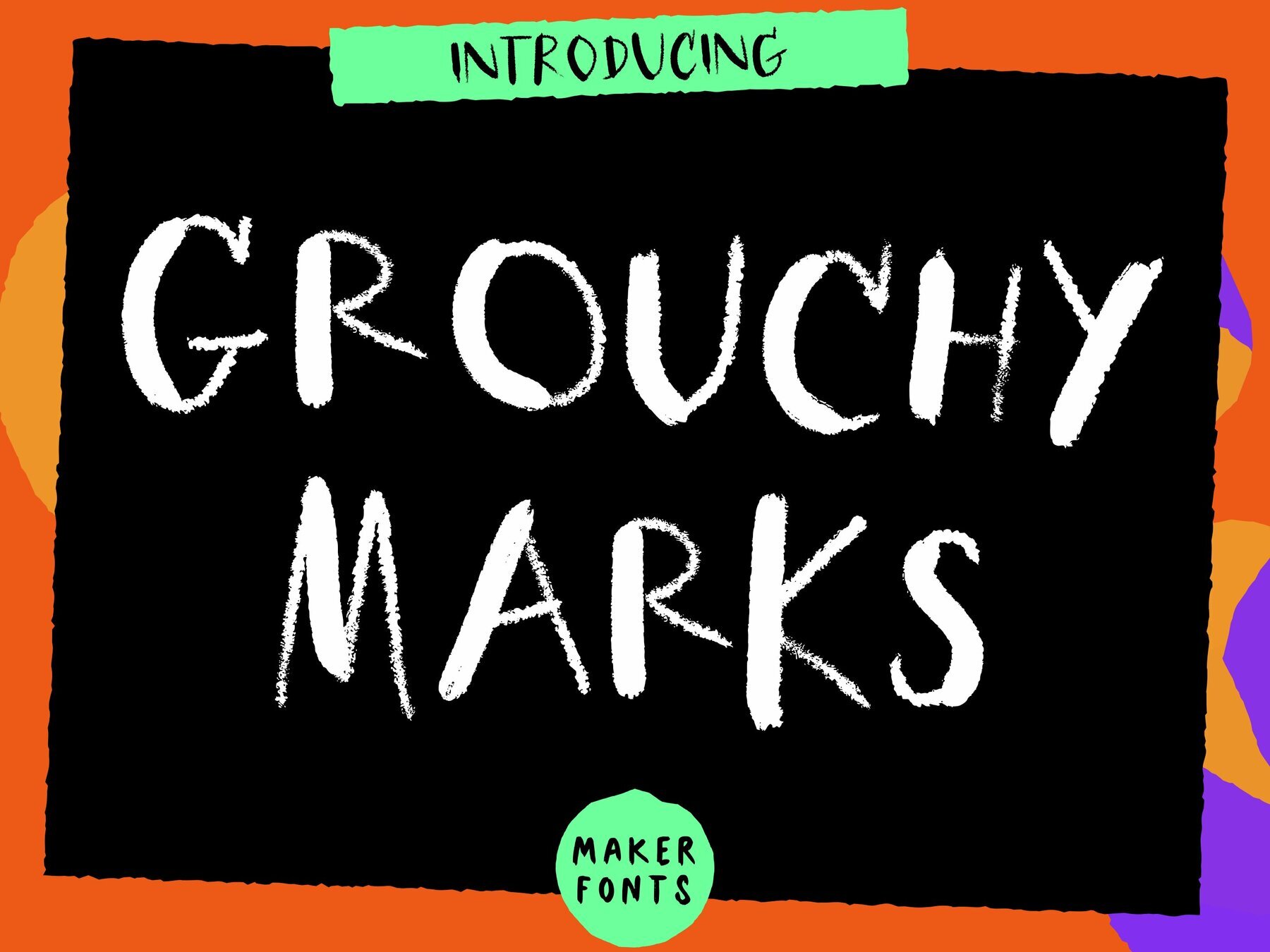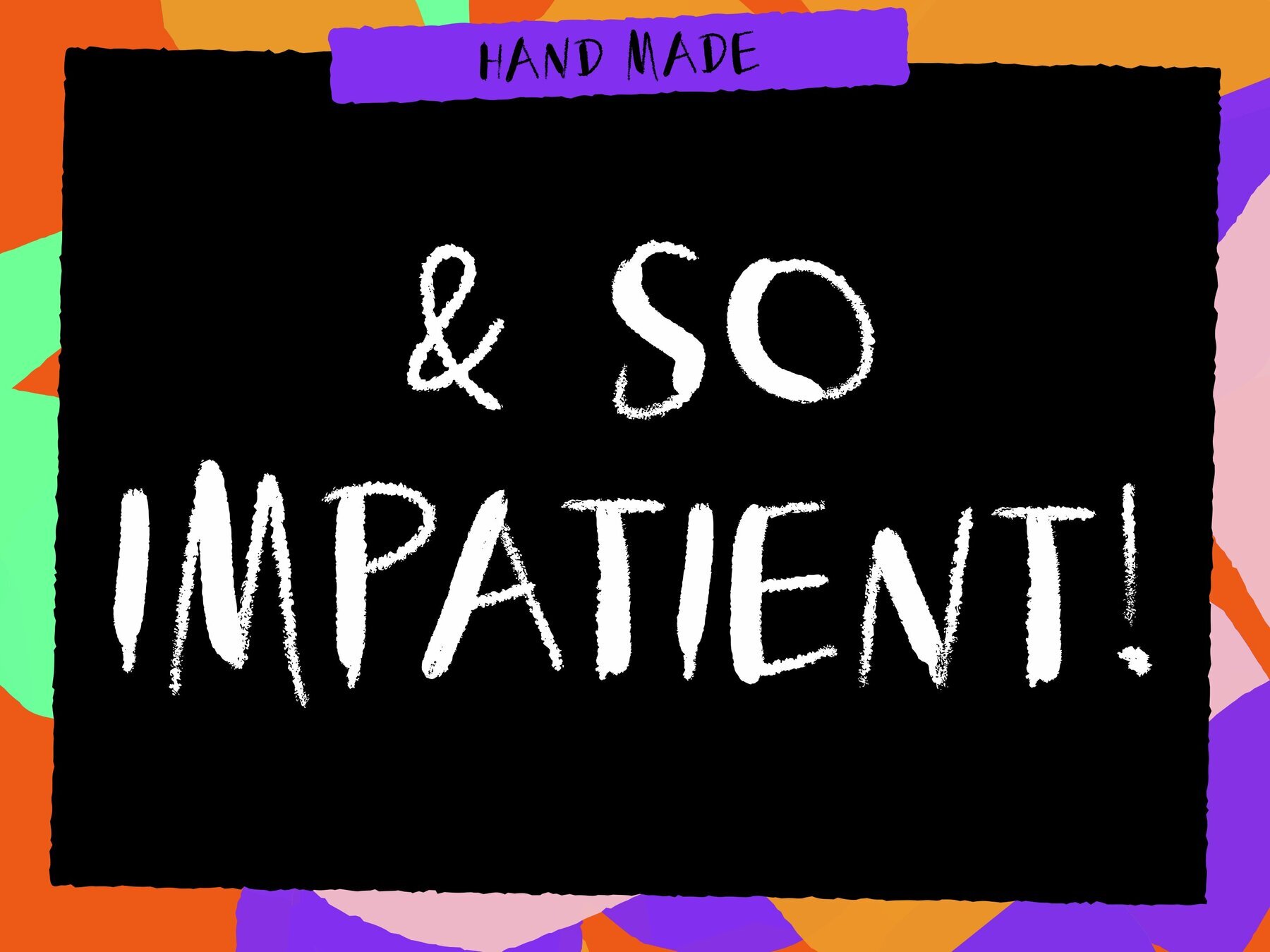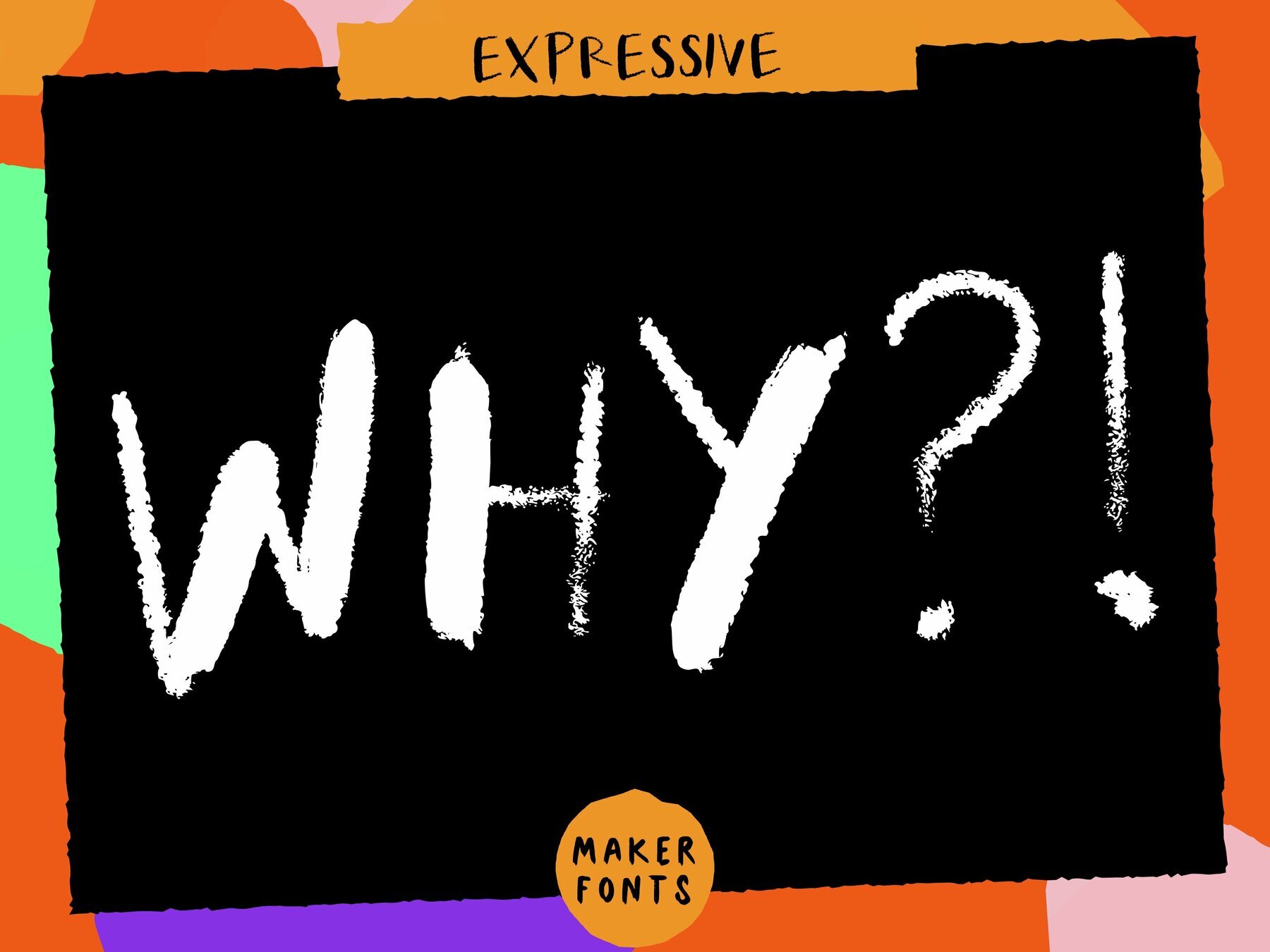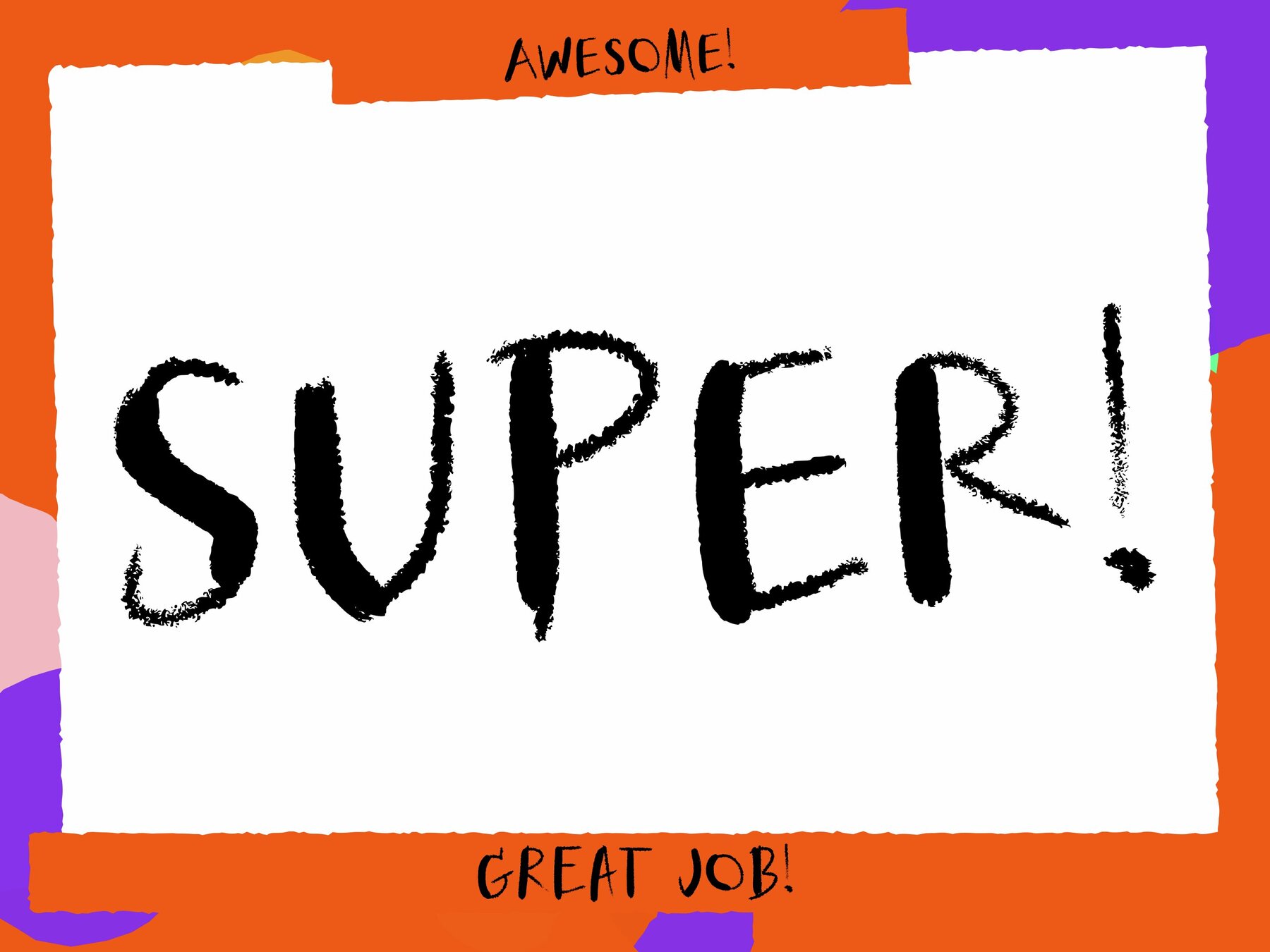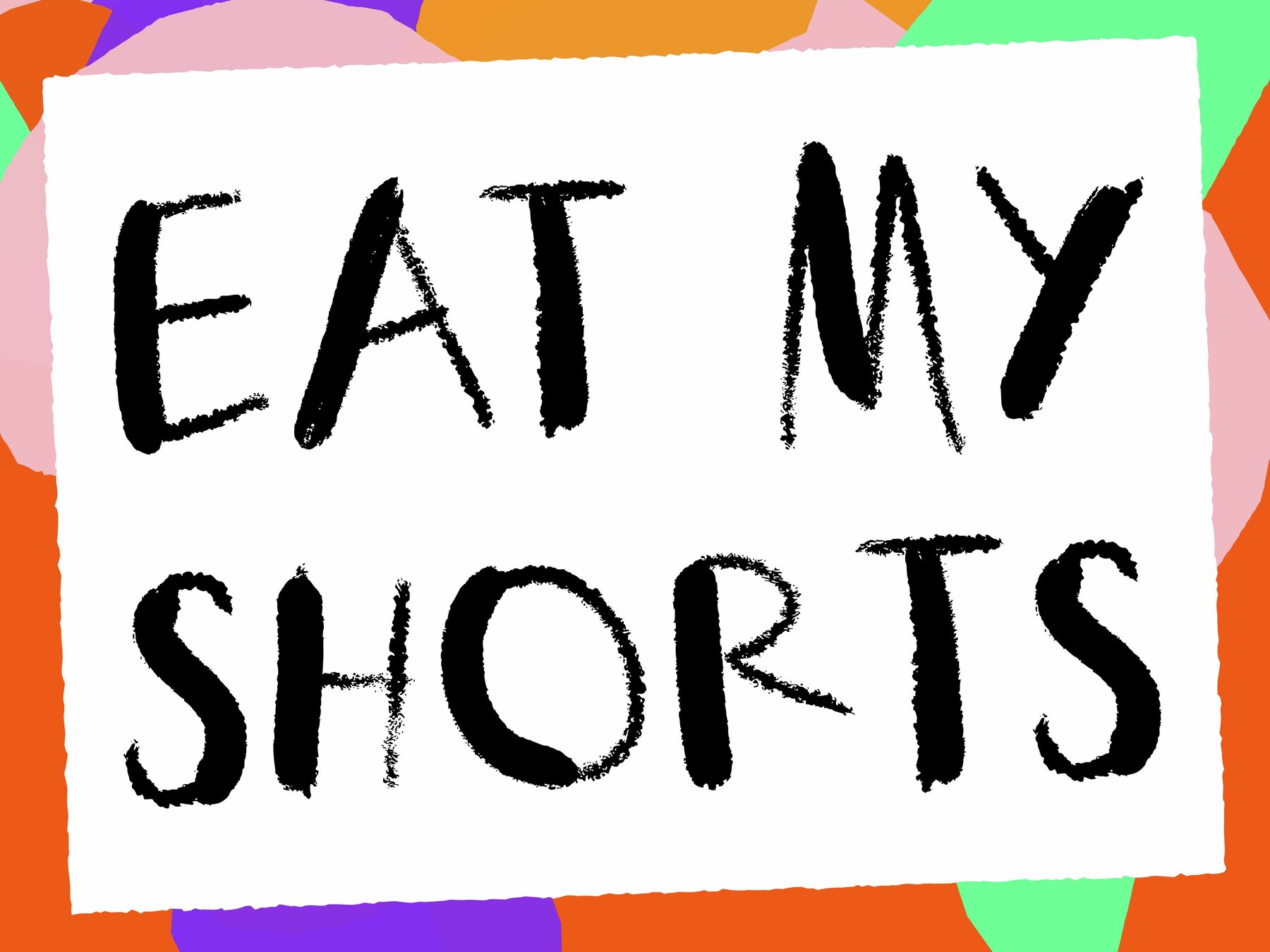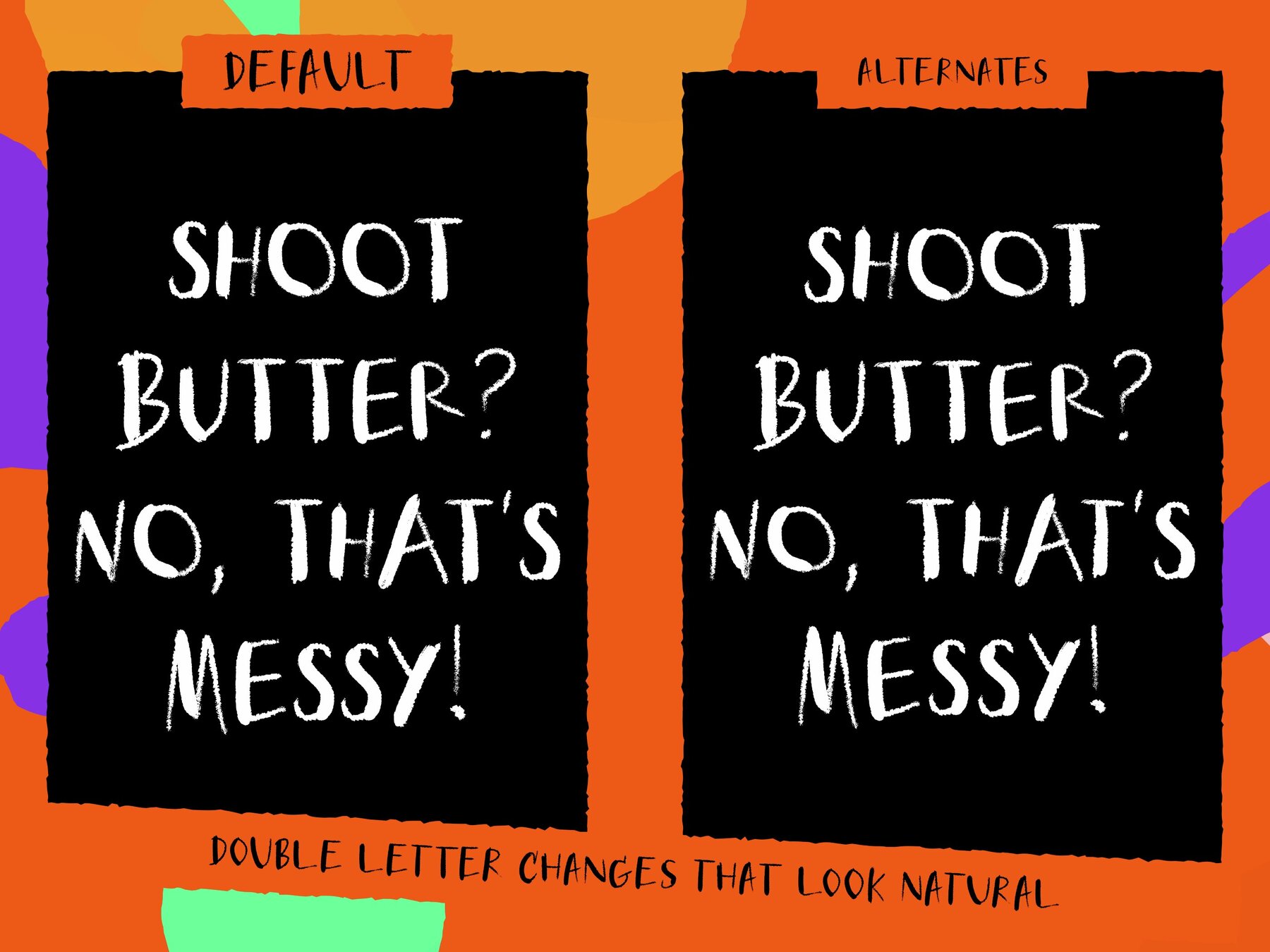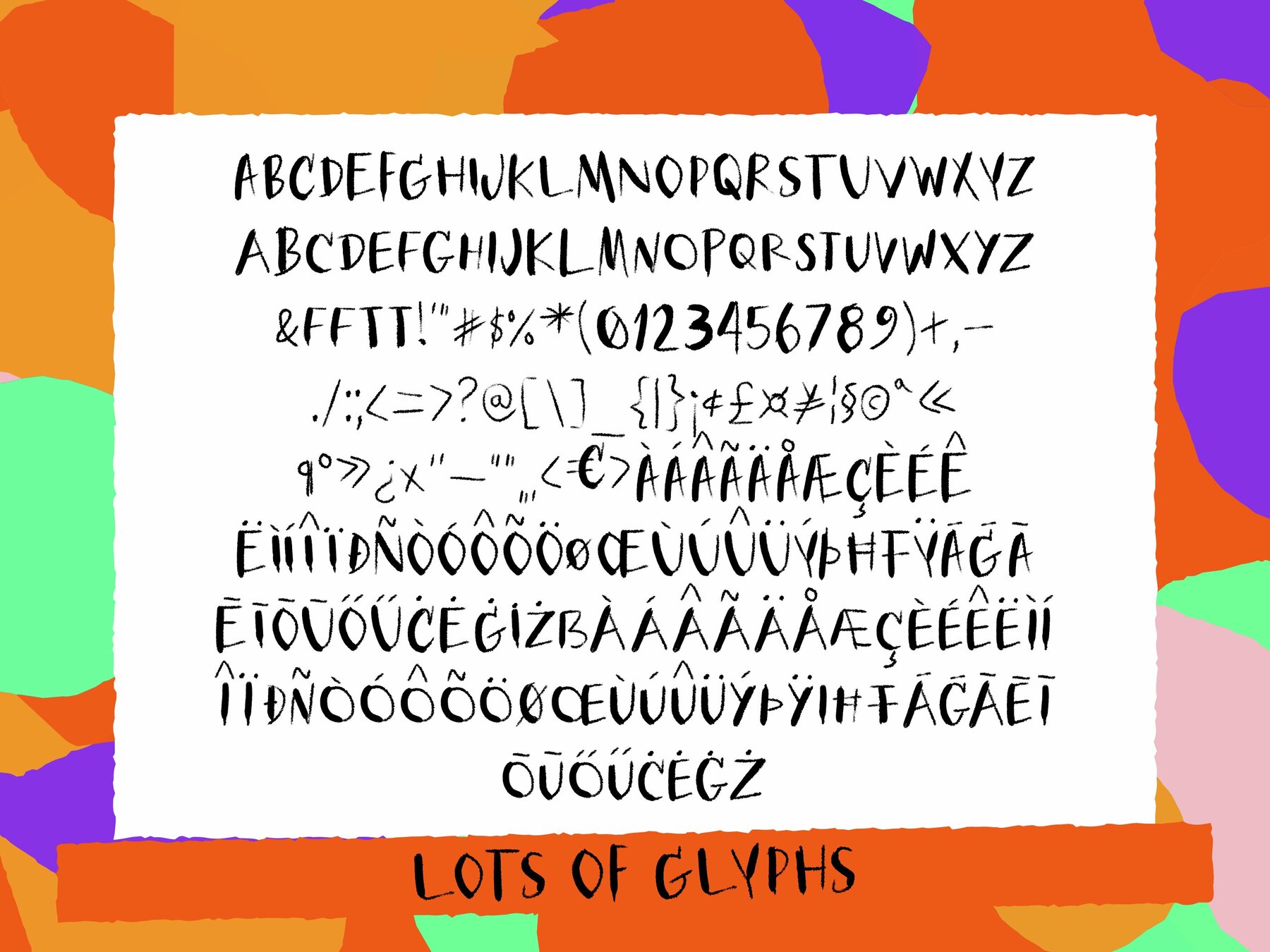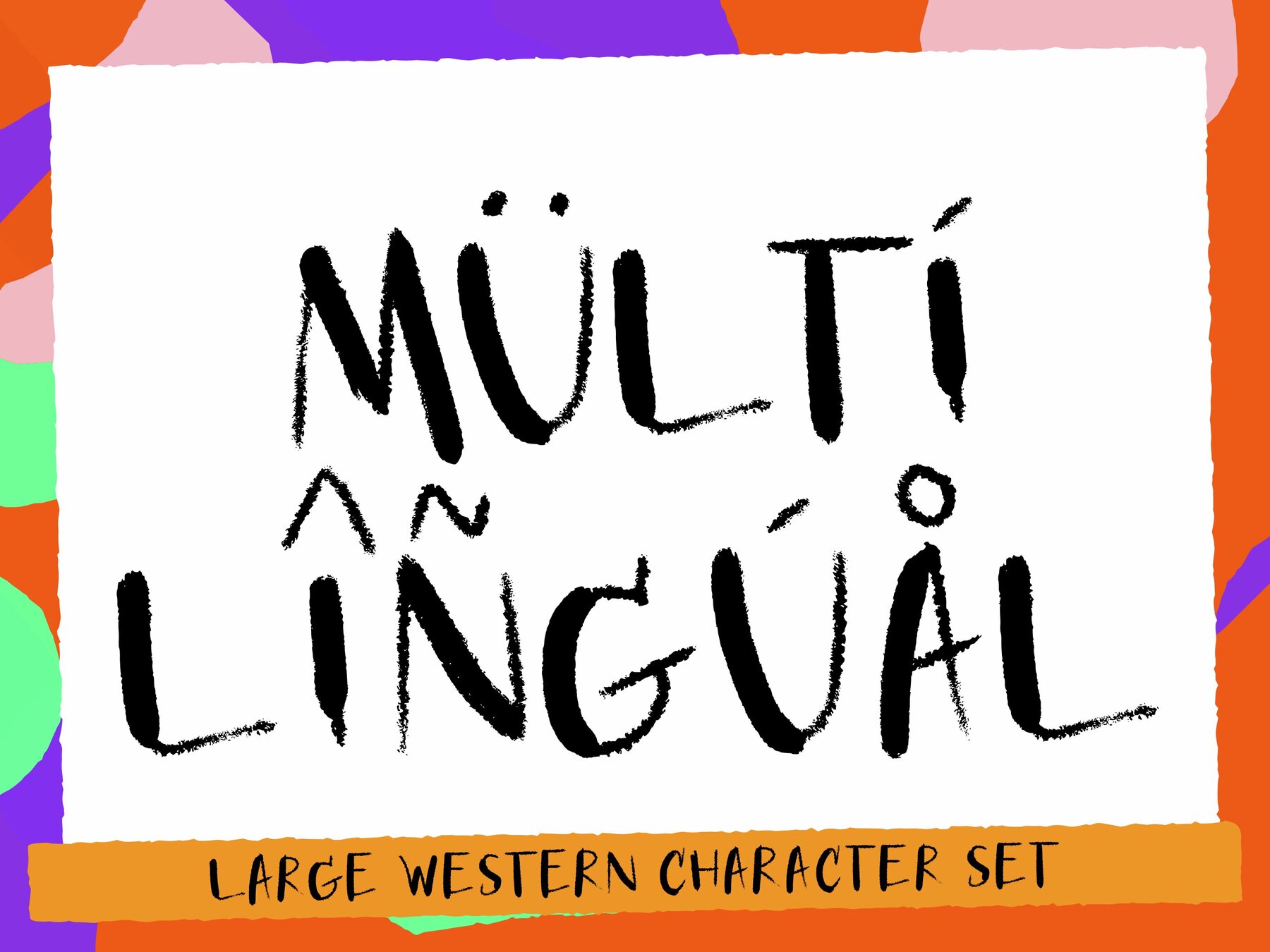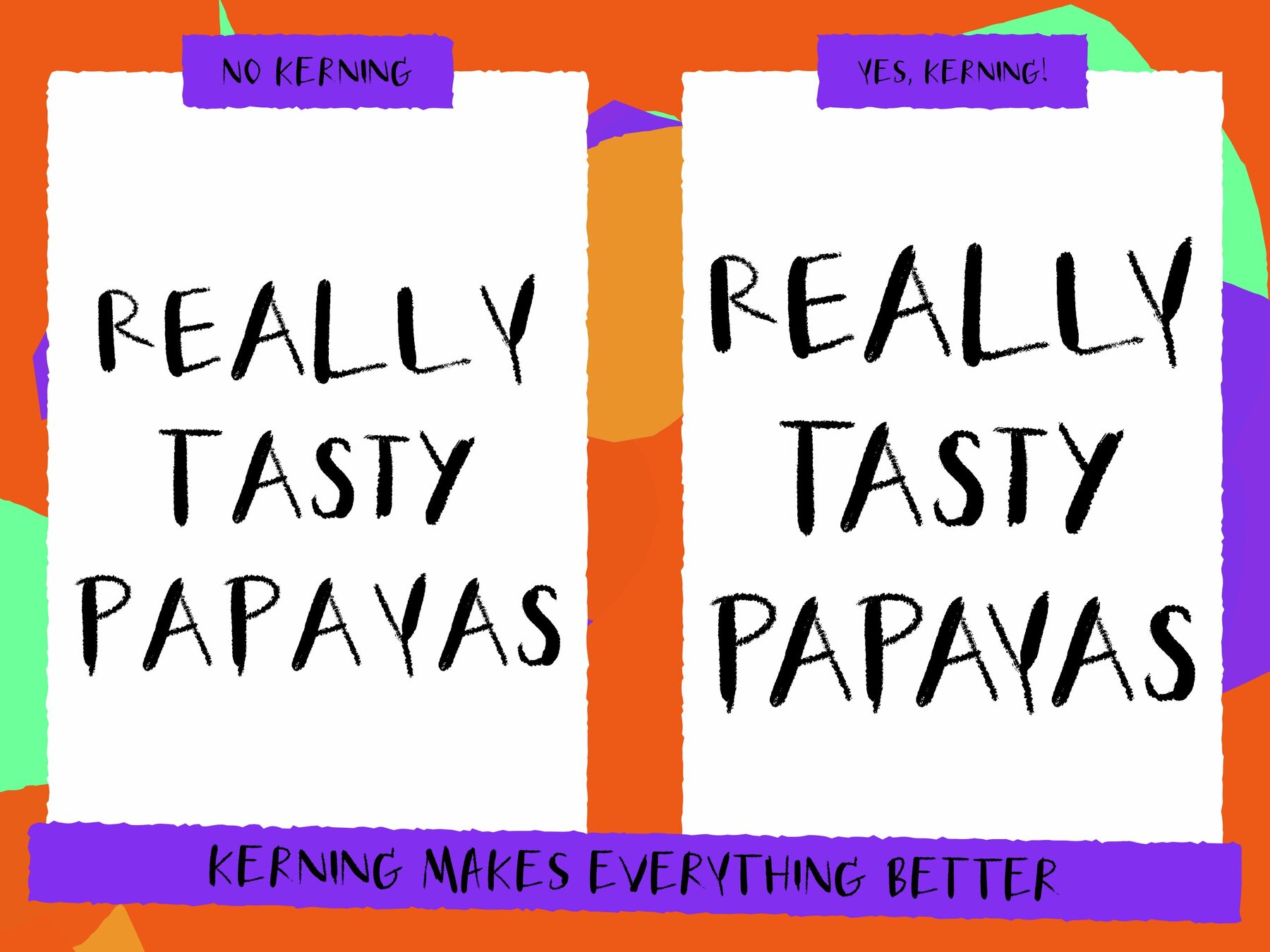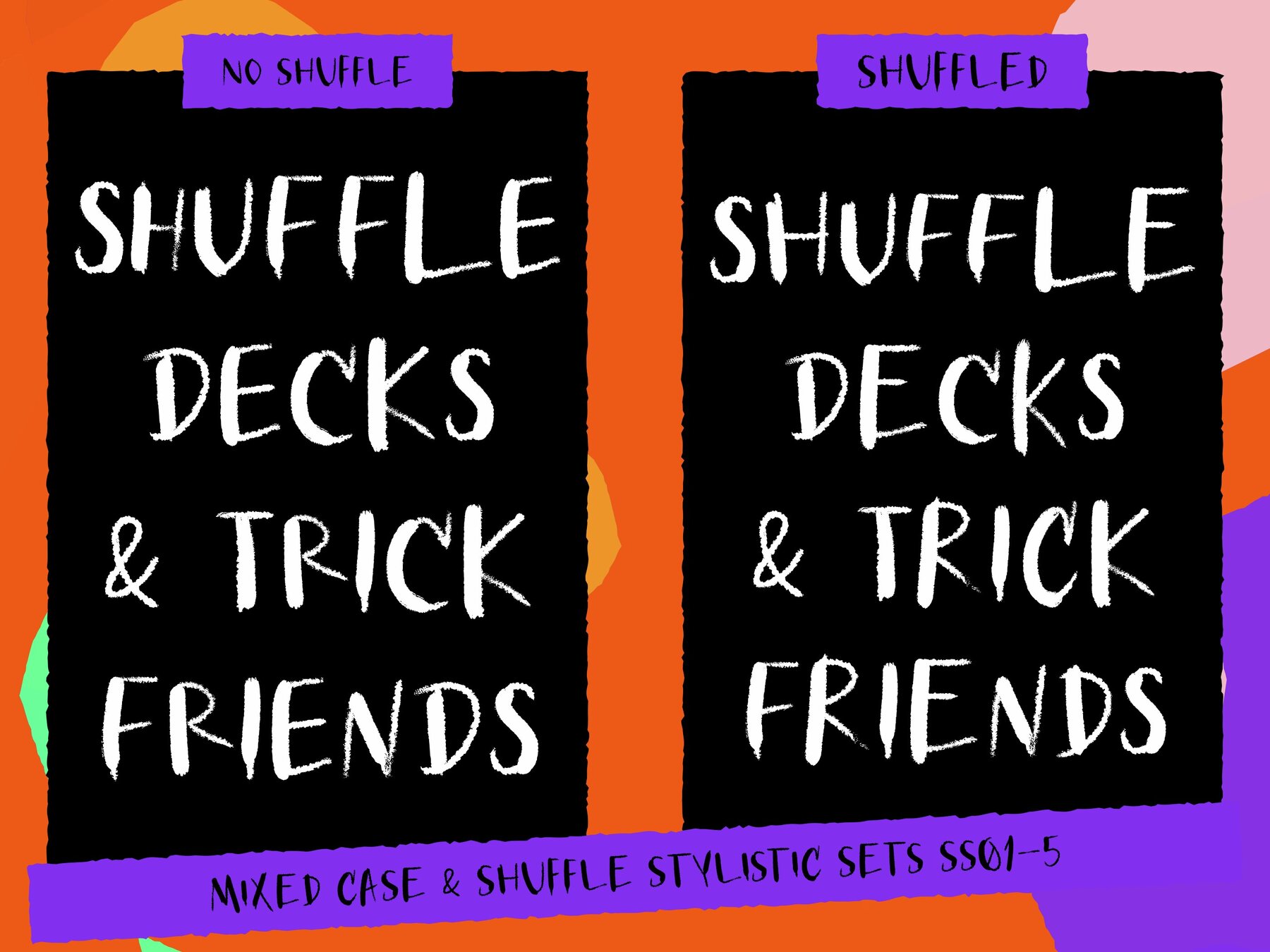
Grouchy Marks Font
MF Grouchy Marks Regular
MF Grouchy Marks is a new handmade font from Maker Fonts. Perfect for greetings cards, packaging, and any use where a bold yet personal touch is needed. Let MF Grouchy Marks add expression in your next project! The font comes with a large western character set and lots of glyphs. Opentype features include: Ligatures, Contextual Alternates, and Stylistic Sets (ss01-ss05) that all combine to create a natural handwritten texture.